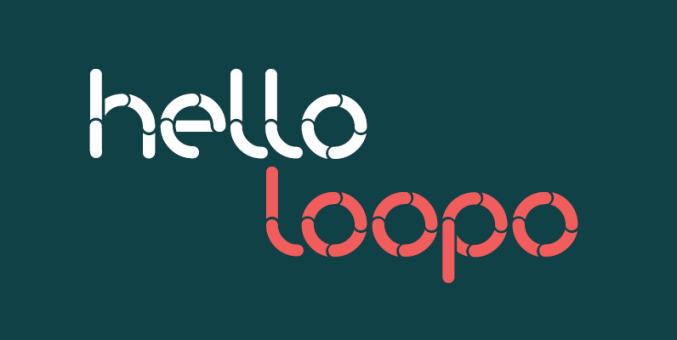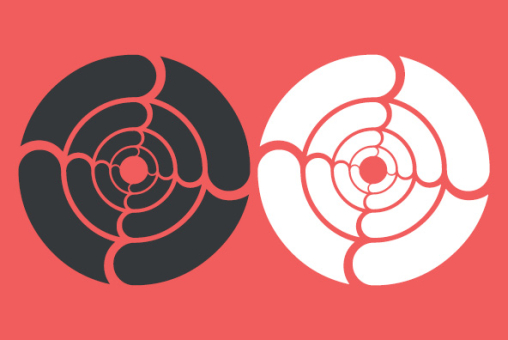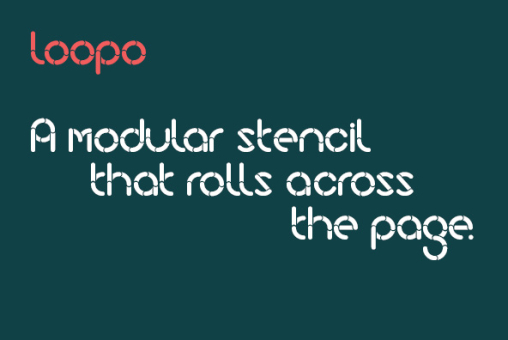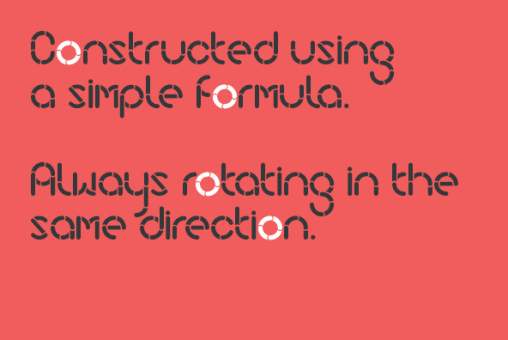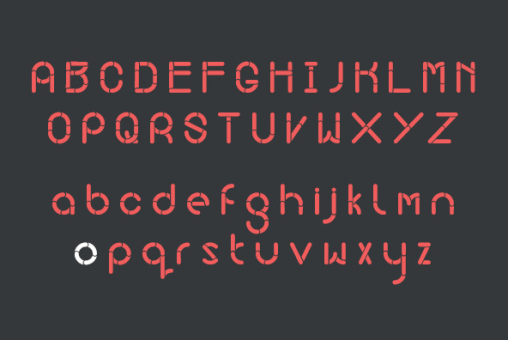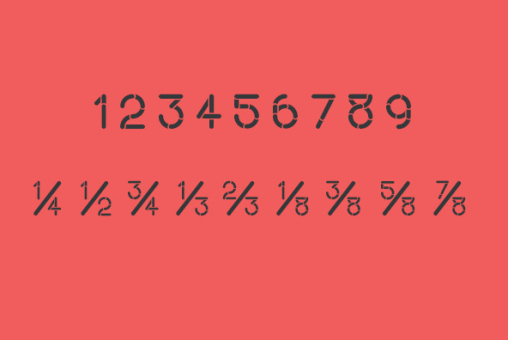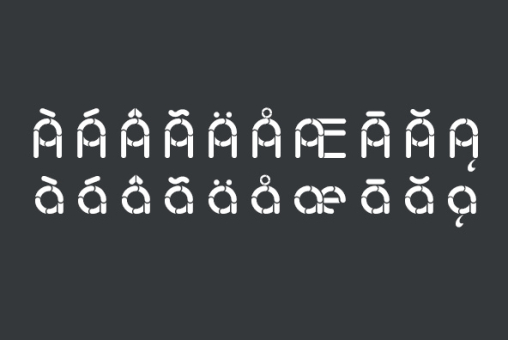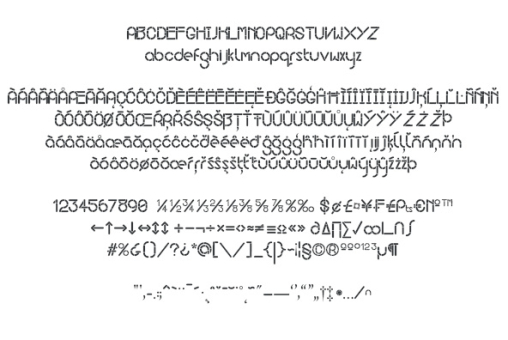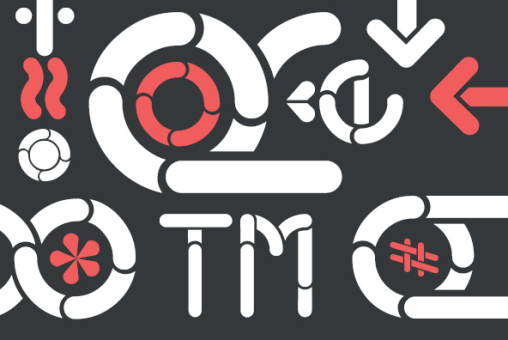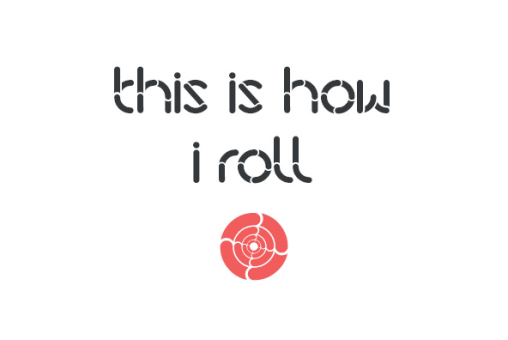
loopo
Loopo was created as an experiment with rotating forms. The cut of the stencil shows the rotation and creates a reference to motion throughout the font. Characters are created by manipulating the rotations of the stencil which gives the font a round and fluid look.
Designer: Little Fonts
Publisher: Little Fonts